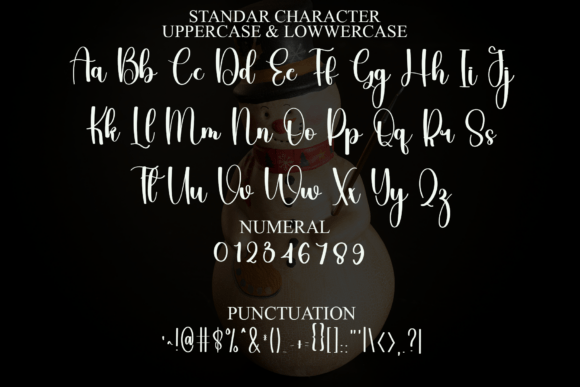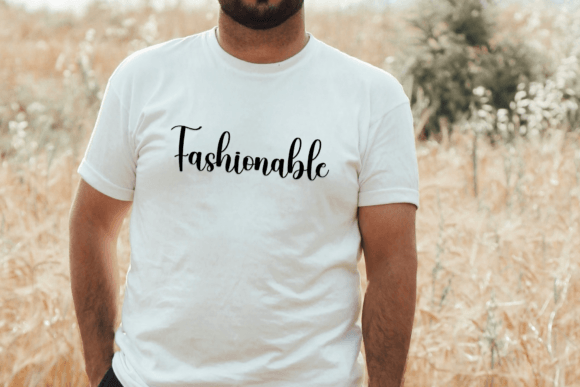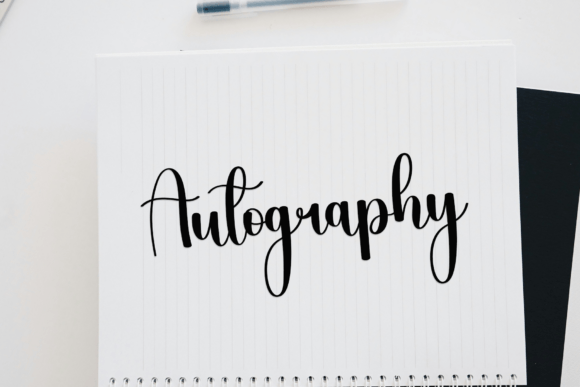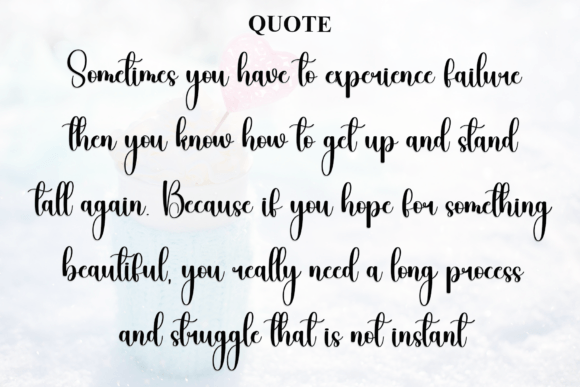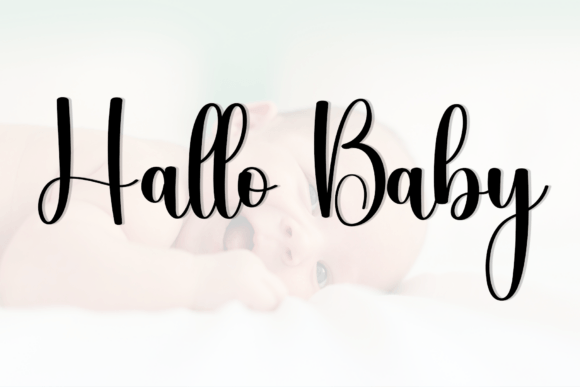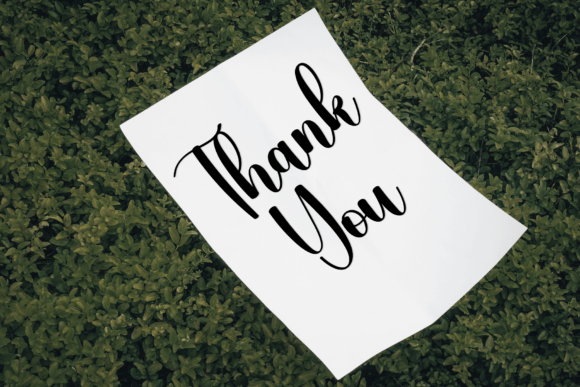
The Joy of Handwritten Touch: Introducing Baby Gesture Font
Have you ever been brainstorming a design project and suddenly, the idea hits you like a bolt of creativity? You envision a beautiful invitation with elegant script, or a logo that exudes warmth and charm. That’s exactly what inspired us to dive into the world of Baby Gesture Font.
Baby Gesture Font is a lovely script font designed to add a touch of beauty and elegance to any design. Its smooth, flowing letters make it perfect for invitations, logos, and any project that needs a personal, handwritten touch. For designers, this font is a valuable addition to their toolkit, offering a unique way to express themselves and connect with their audience.
Baby Gesture Font Key Features
- Unique Character Set: The Baby Gesture Font includes a wide range of characters, including hand gestures, facial expressions, and body language, specifically designed for communicating with infants and toddlers.
- Scalability: Designed to be highly scalable, allowing for easy resizing without loss of quality, making it perfect for use in various design applications.
- Legibility: The font is designed to be highly legible, even at small sizes, ensuring that the intended message is conveyed clearly and effectively.
- Customization Options: The font includes a range of customization options, allowing designers to adjust the font’s appearance to suit their specific needs and preferences.
Baby Gesture Font Review
At first glance, the Baby Gesture Font seems like a cute and playful addition to any design project. ✨ Its rounded edges and soft lines evoke a sense of innocence and vulnerability. I appreciate how the font can add a touch of whimsy to a design, making it perfect for child-related projects or brands that want to convey a sense of youthfulness.
One of the strengths of the Baby Gesture Font is its versatility. ✨ It comes in a range of weights, from light to bold, allowing designers to use it in a variety of contexts. The font also works well in both uppercase and lowercase, making it a great choice for headings and body text.
While the Baby Gesture Font is a great choice for certain projects, it may not be suitable for all design needs. ⚠️ The font’s rounded edges can make it difficult to read at small sizes, and the soft lines can make it appear less sharp or professional in certain contexts. Additionally, the font may not be ideal for projects that require a more serious or formal tone.
In conclusion, the Baby Gesture Font is a great choice for designers who want to add a touch of playfulness and whimsy to their projects. While it may have some limitations, its versatility and range of weights make it a valuable addition to any design library.
- Use the Baby Gesture Font in moderation, as its playful nature can quickly become overwhelming.
- Consider using the font in conjunction with other fonts to create visual interest and balance.
- Use the font in larger sizes to ensure readability and legibility.
The Baby Gesture Font is perfect for creating a playful and whimsical atmosphere. Use it for:
- Baby-themed invitations and cards.
- Children’s book illustrations and designs.
- Playful branding and marketing materials.